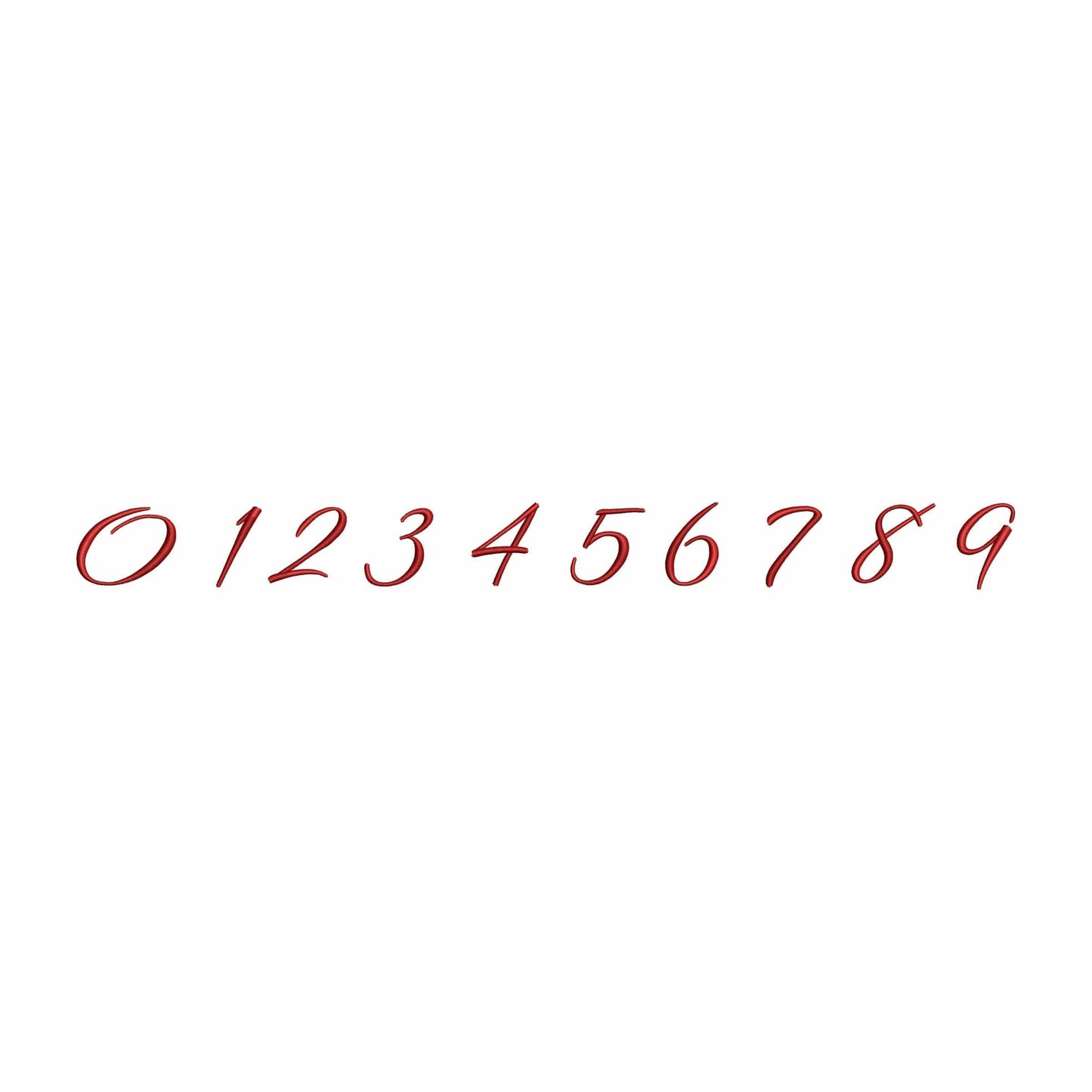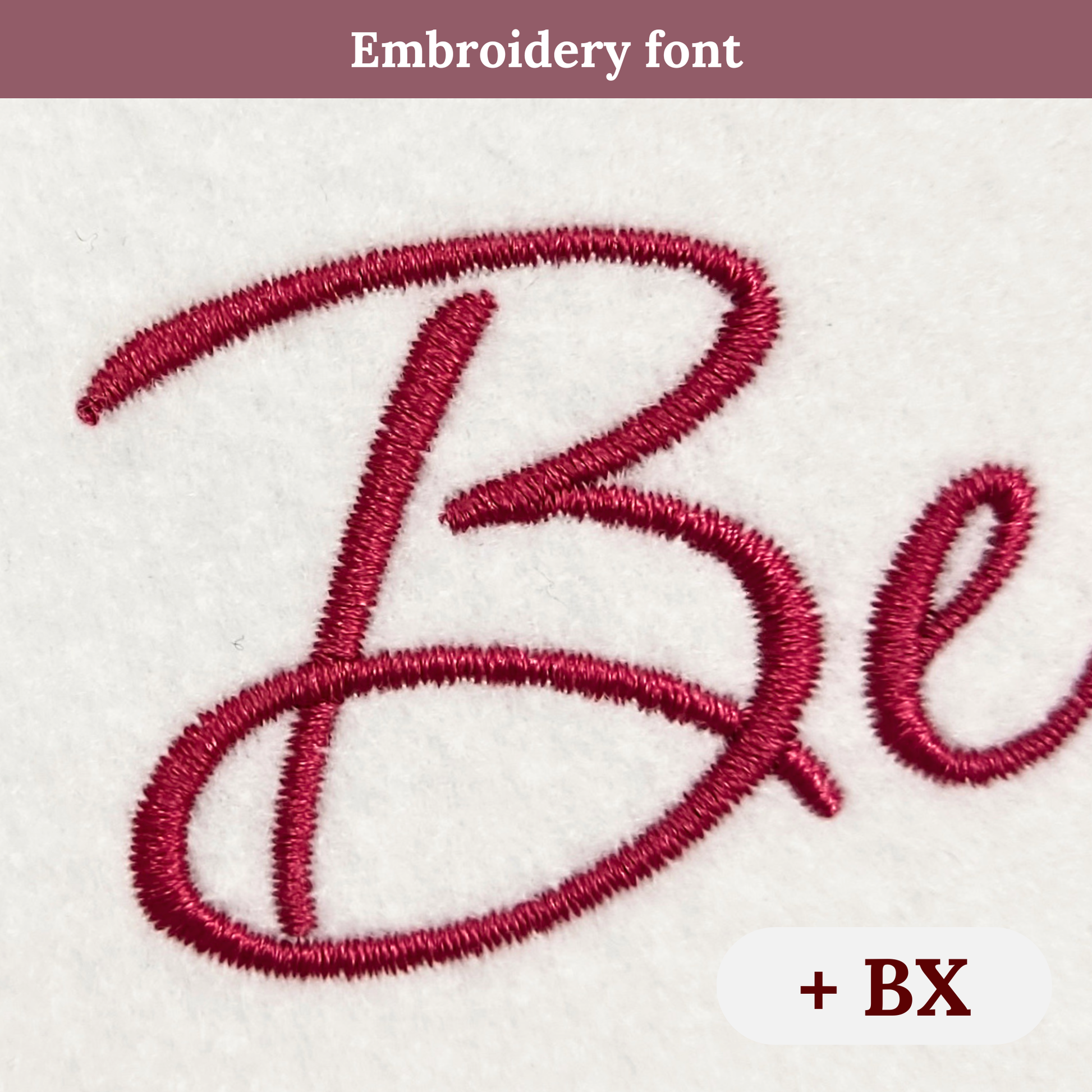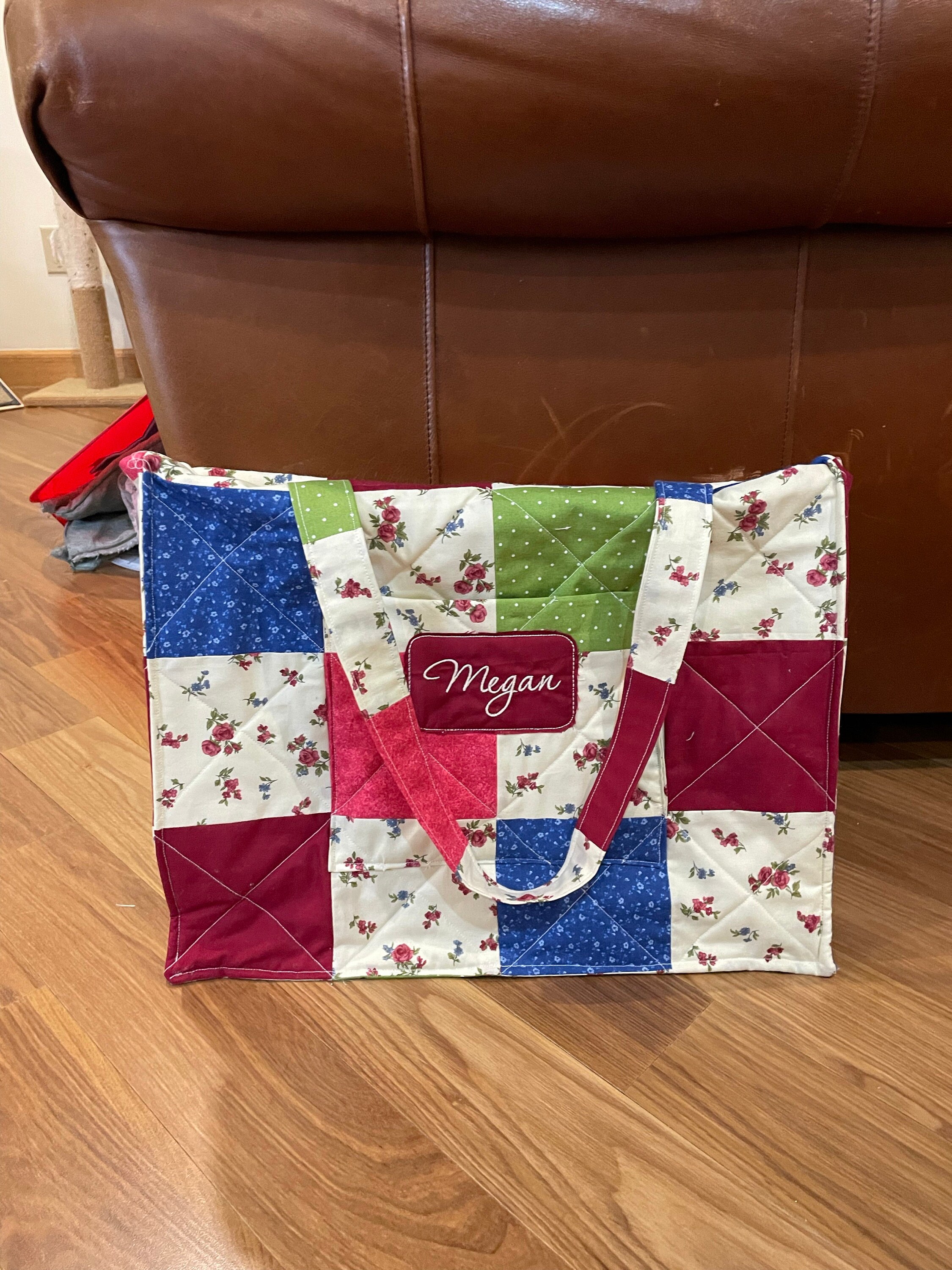
Bella - Embroidery font
This machine embroidery font works well for monograms, towels, shirts, keepsakes, and elegant personalized embroidery.
A useful digital download for makers who want thin cursive lettering with a modern feminine style.